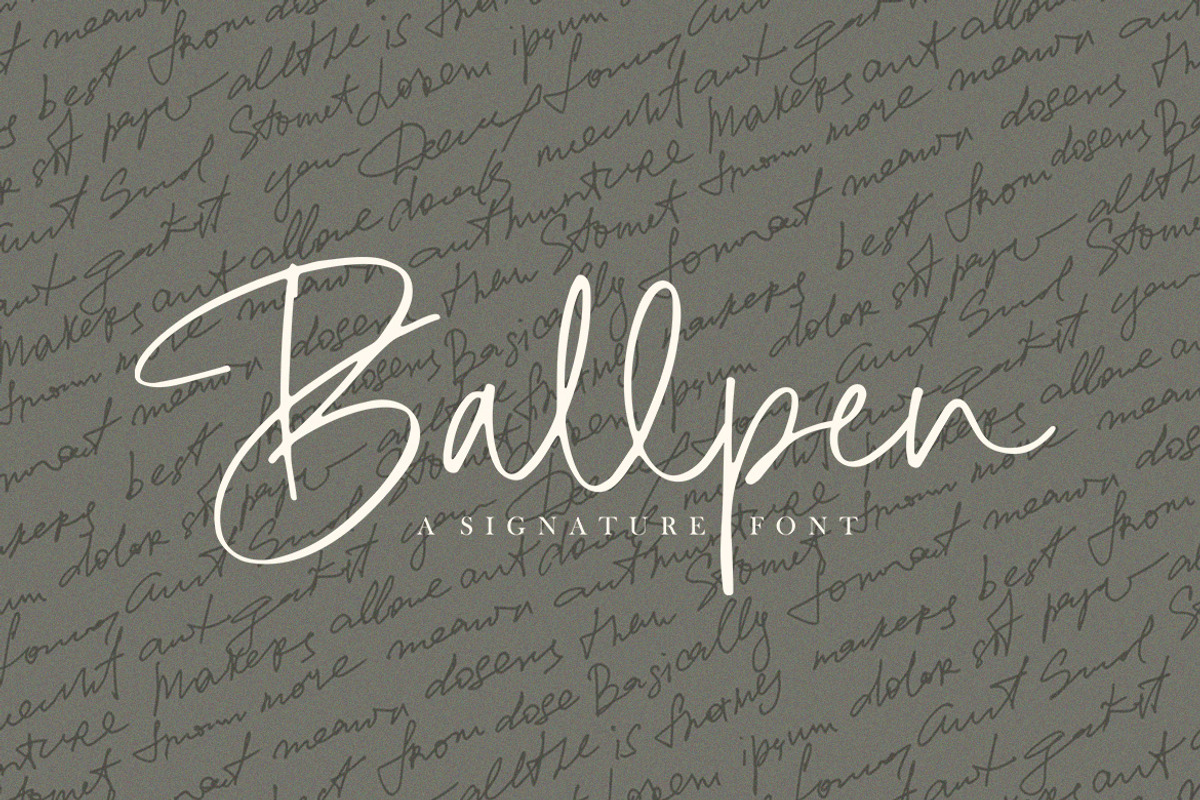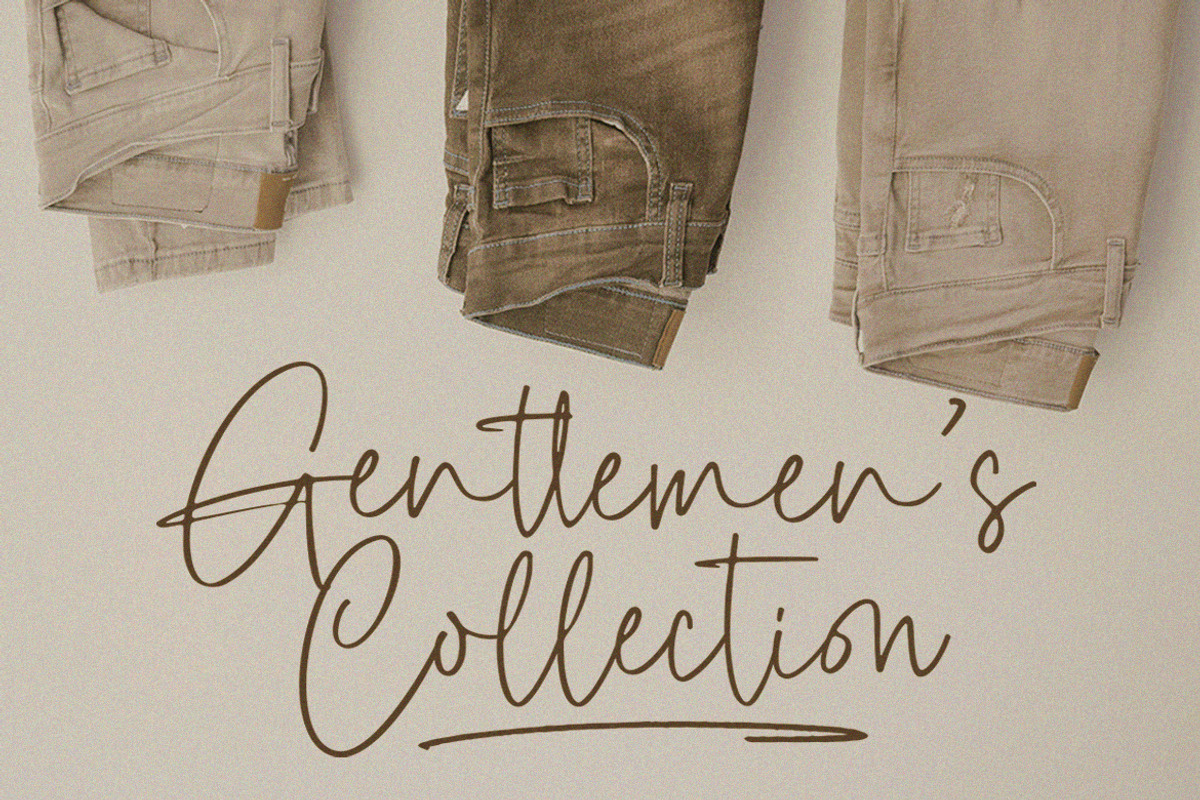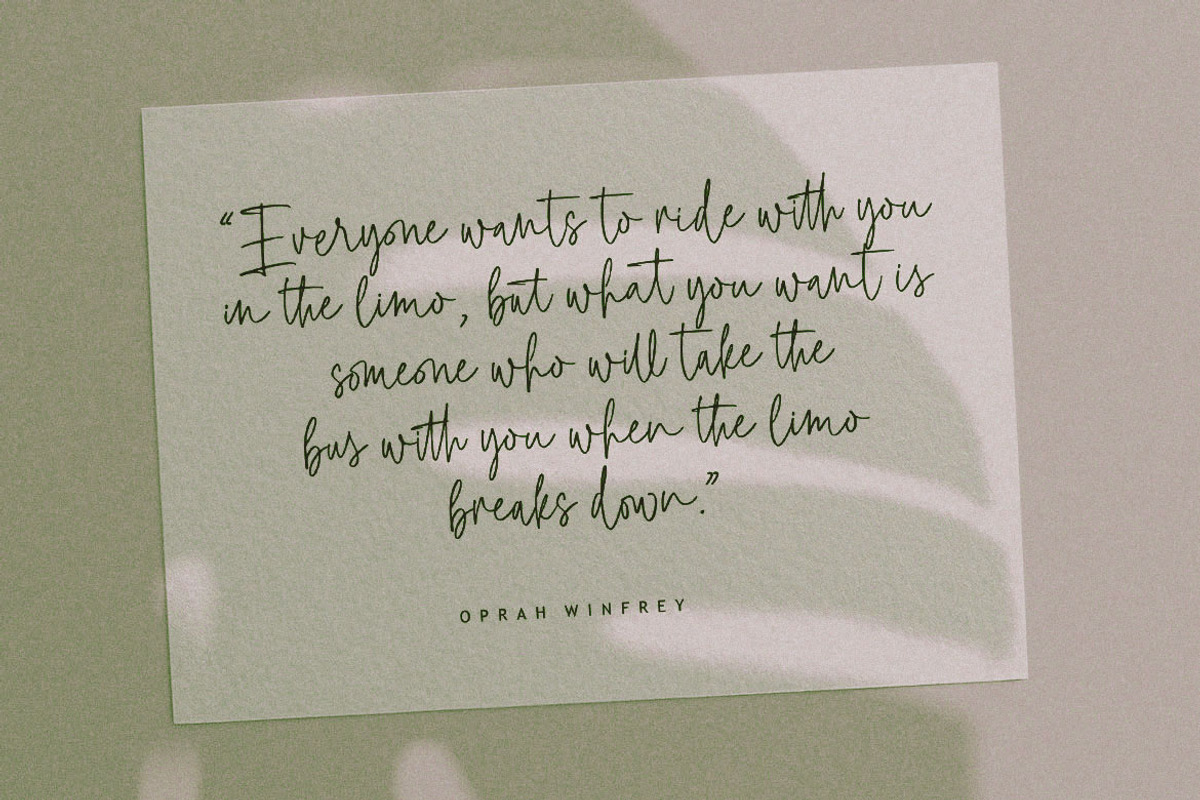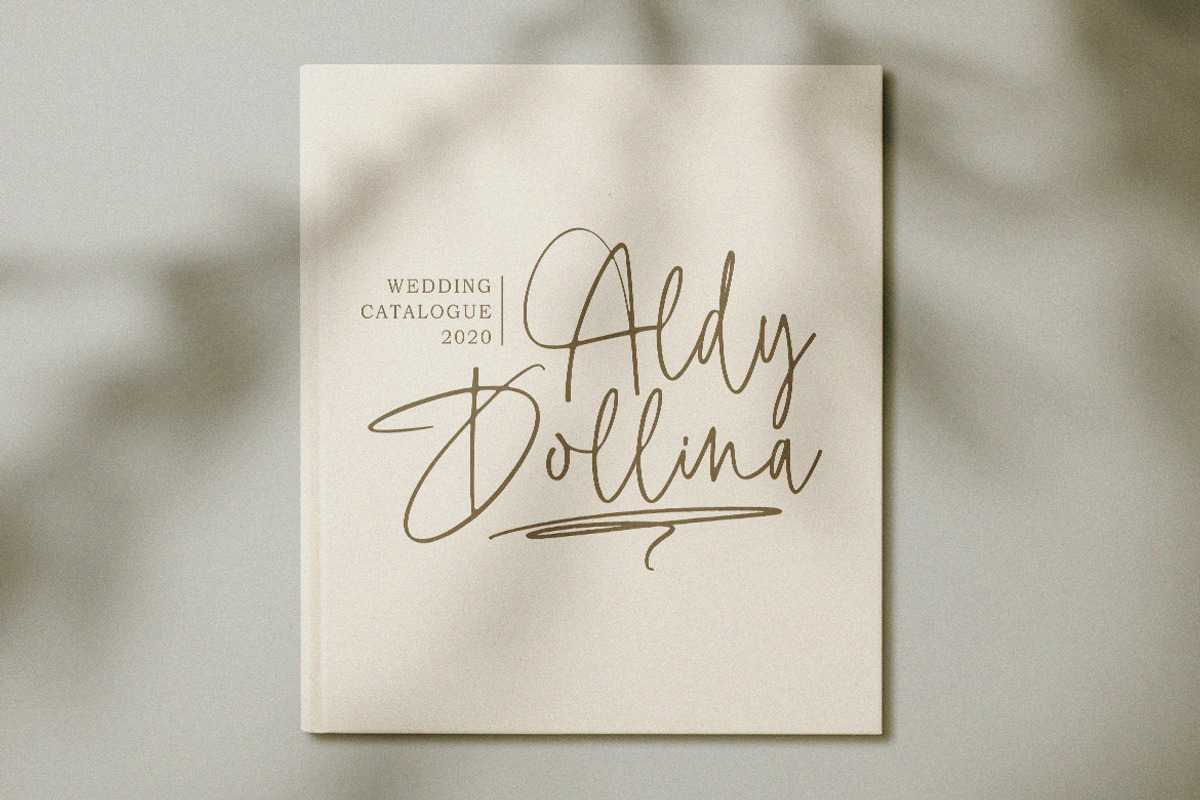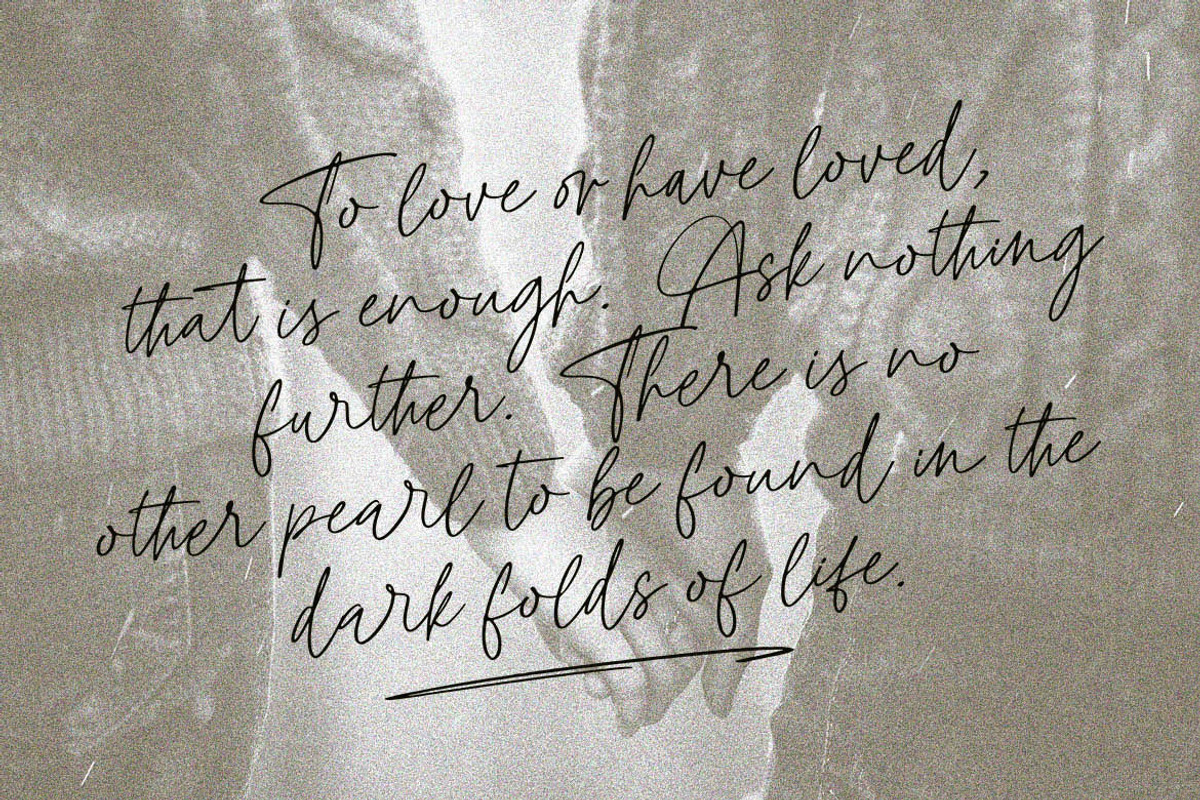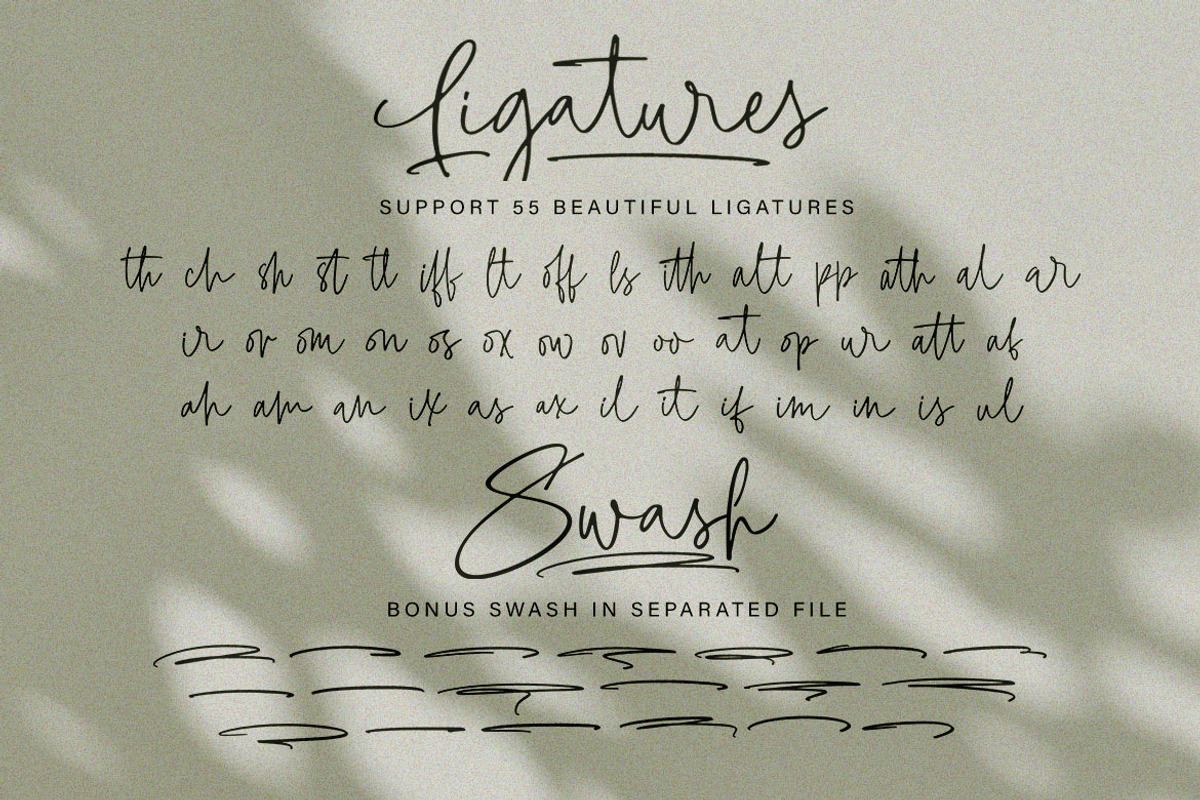
Ballpen - Handwritten Signature font
Introducing the new "Ballpen" font, an elegant signature font. This font is perfect for Wedding font, Fashion font, Invitation font, t-shirts font, websites font, Business font, Quotes font, headline font, branding font, advertising font, Signature Font, Social Media Font, Stationary Font, Product Packaging Font, Label Fonts, Photography signature, evnt font, poster font, party font, and various print and digital media with stylish touch. What's Included